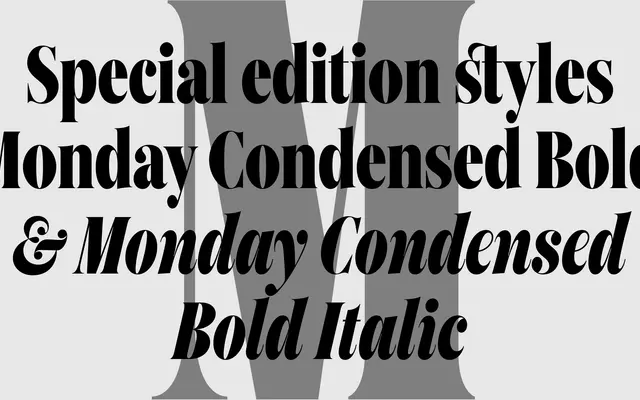
Monday
A2-Type · 2003
A vernacular English serif drawn from letterforms found on historical City of London buildings, originally commissioned for a 2003 Arnolfini Gallery exhibition.
Rooted in the inscriptional lettering of London's built environment, Monday carries the quiet authority of stone-cut or cast letterforms translated into a digital typeface. Six weights from Light to Black with matching italics give it a workable range for editorial and identity applications. Its origins in a gallery commission lend it a cultural specificity that distinguishes it from more generic historical revivals.
Described by the foundry as a vernacular English serif typeface drawn from letterforms found on historical buildings in the City of London, placing it within a tradition of lapidary and inscriptional serif design.